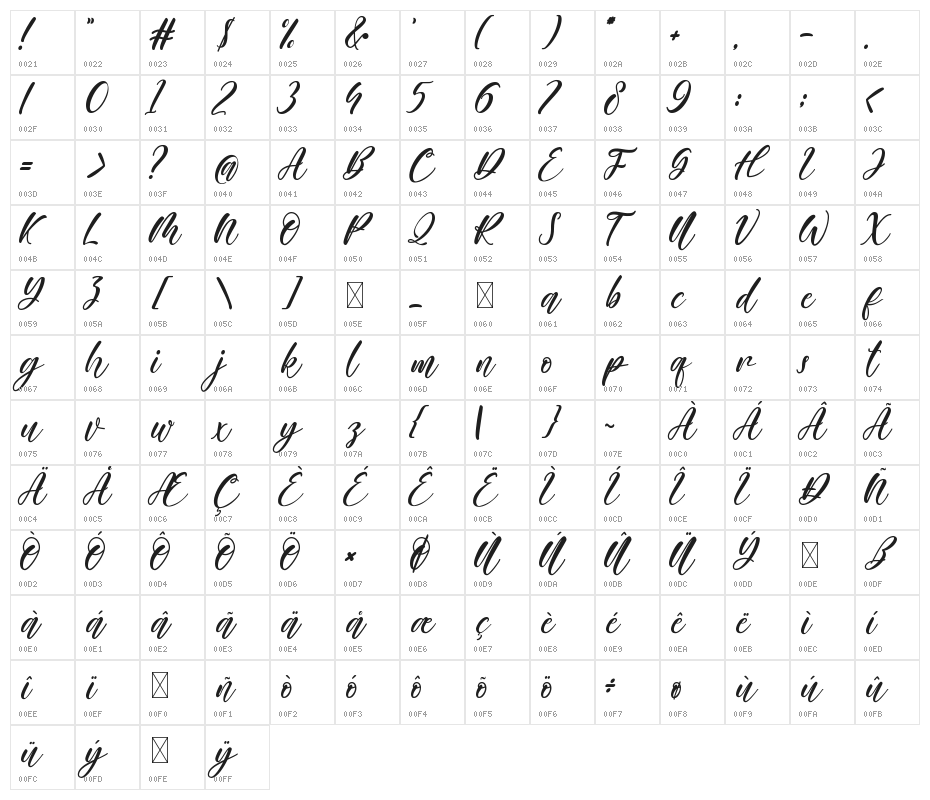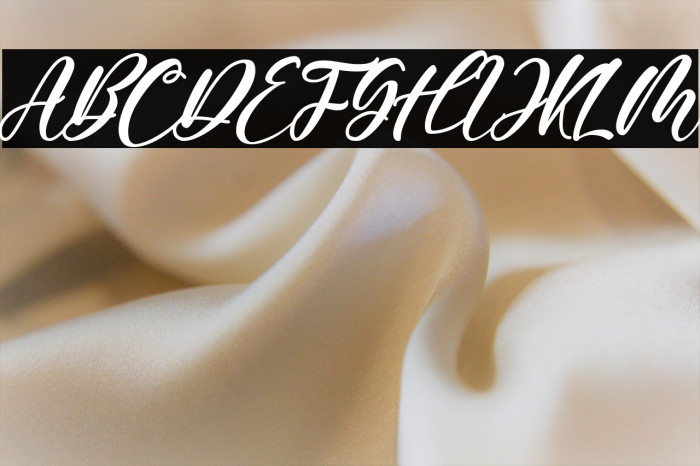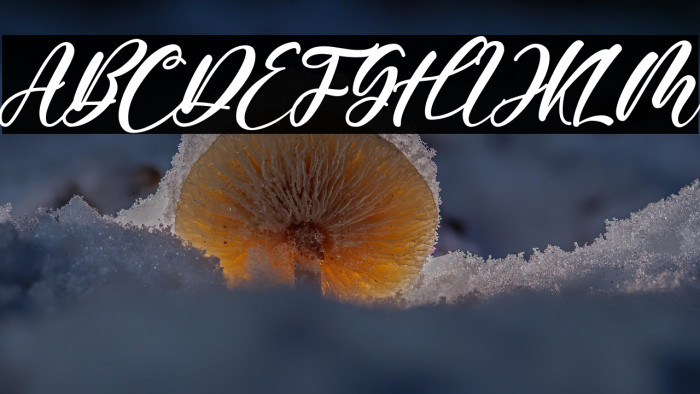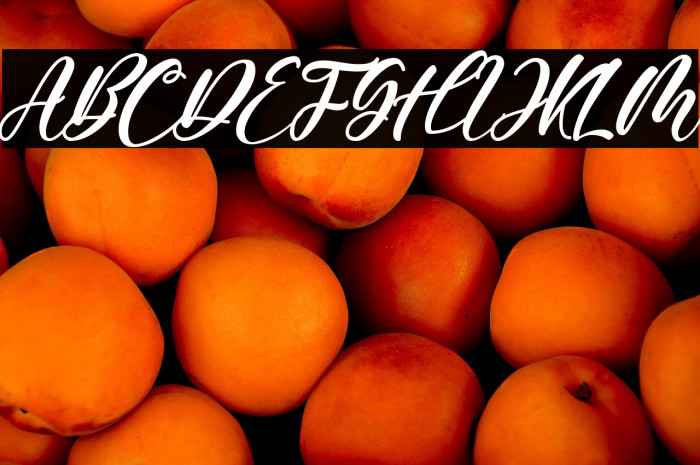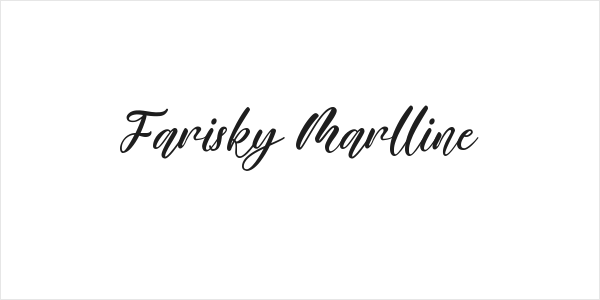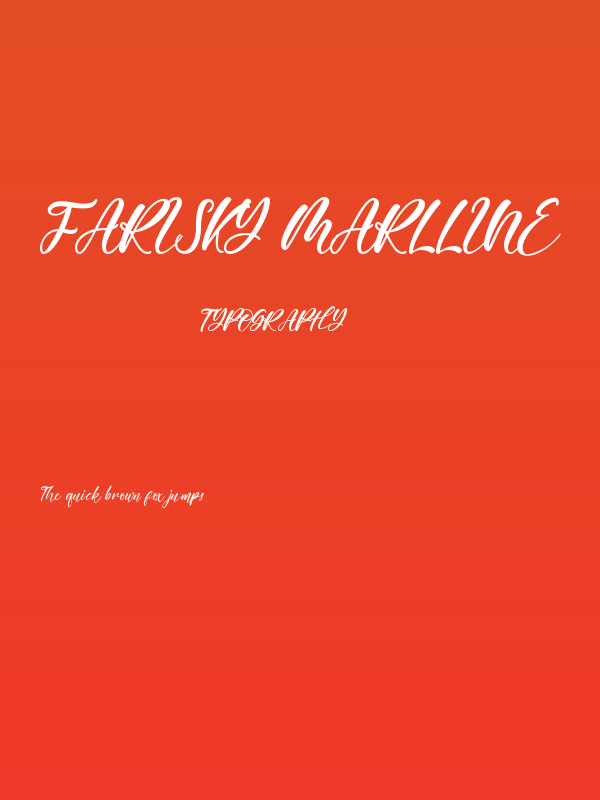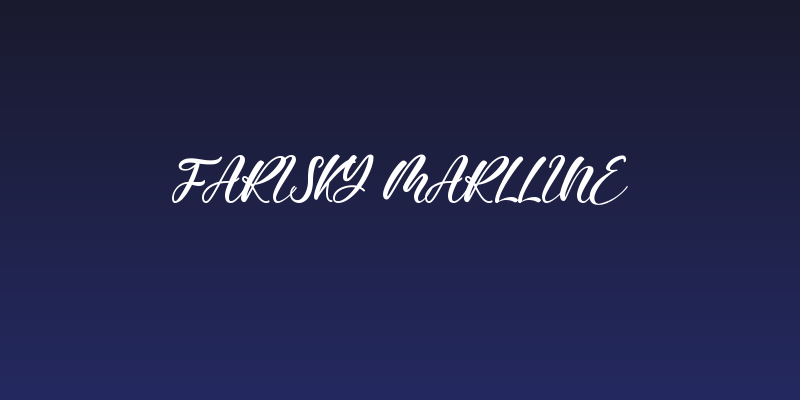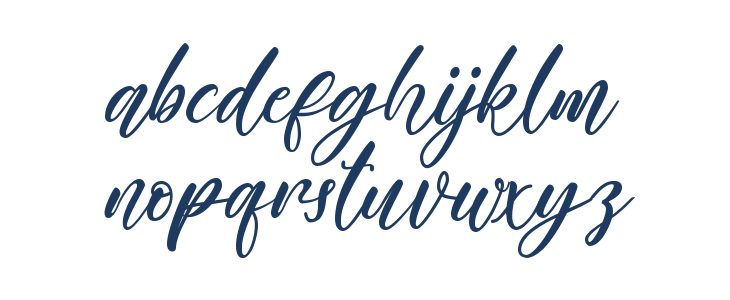
Farisky Marlline Font
Farisky Marlline Description
This font features a flowing, cursive style with a modern twist. The letters are interconnected, creating a seamless and elegant appearance. The strokes are bold and expressive, with a consistent thickness that adds to its readability. The uppercase letters are slightly larger and more pronounced, while the lowercase letters maintain a smooth and fluid form. The numbers and special characters are designed to match the overall aesthetic, ensuring a cohesive look across all text elements. This font exudes a sense of sophistication and creativity, making it ideal for artistic and decorative purposes.
Use CaseLogos, Invitations, Decorative text
Proposed ProjectsIdeal for wedding invitations, branding, logo design, and artistic projects requiring a touch of elegance.